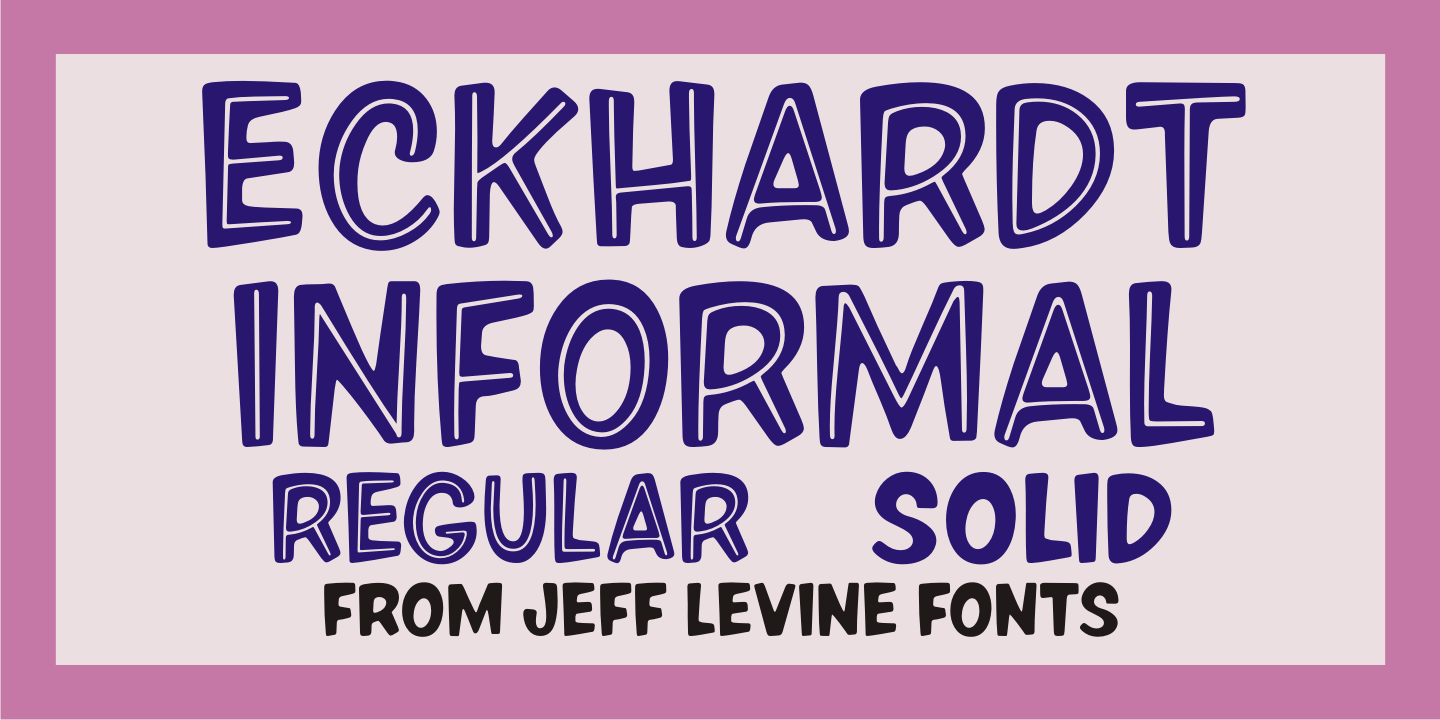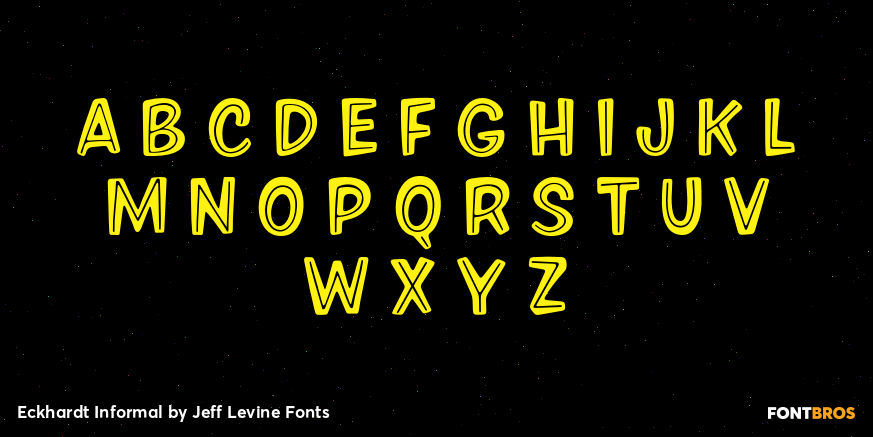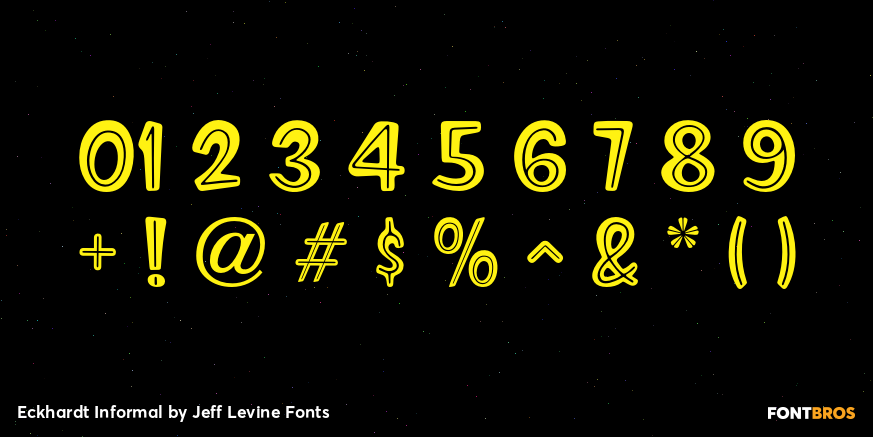
Eckhardt Informal
Eckhardt Informal JNL was found in a Dan Solo alphabets book under the name 'Circus Wagon”. This hand-lettered design with a playful inline is reminiscent of the show cards of the 1940s and 1950s.
The Eckhardt series of typefaces is named in honor of the late Al Eckhardt, Jr. - a good friend of type designer Jeff Levine whose talents in hand-crafting attractive lettering was appreciated by many.
His work, like the others before him is fast become a lost art in today's technology-driven world.
Eckhardt Informal JNL is available in it's regular (inline) version and also as a solid version.